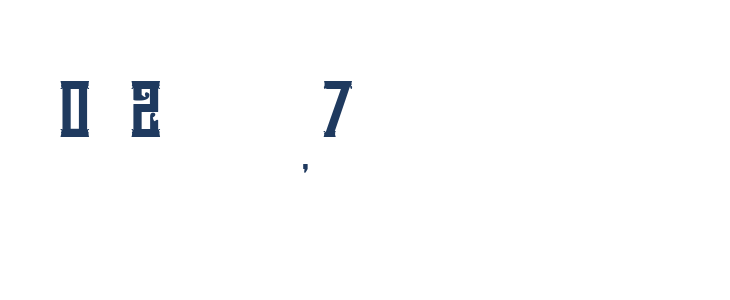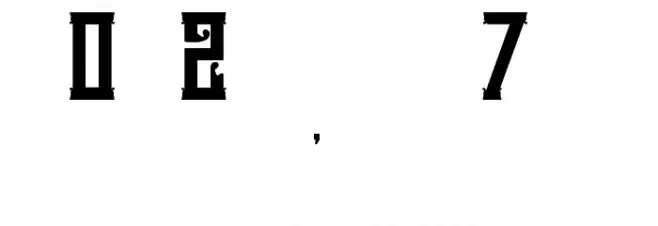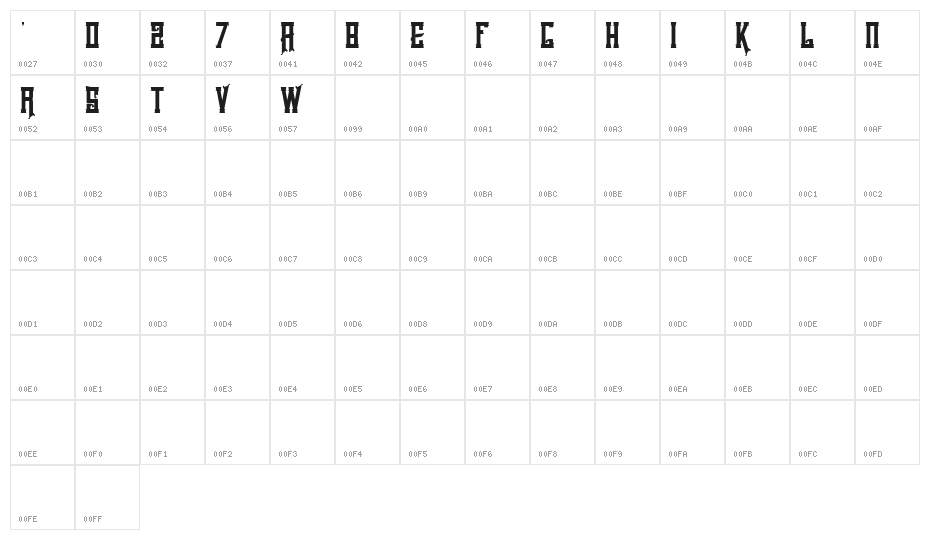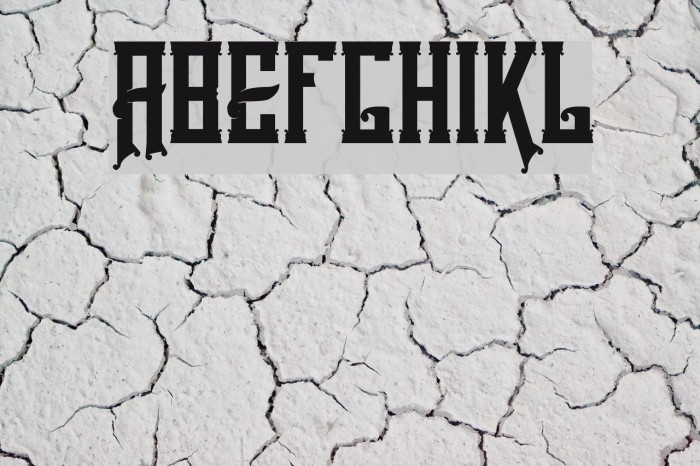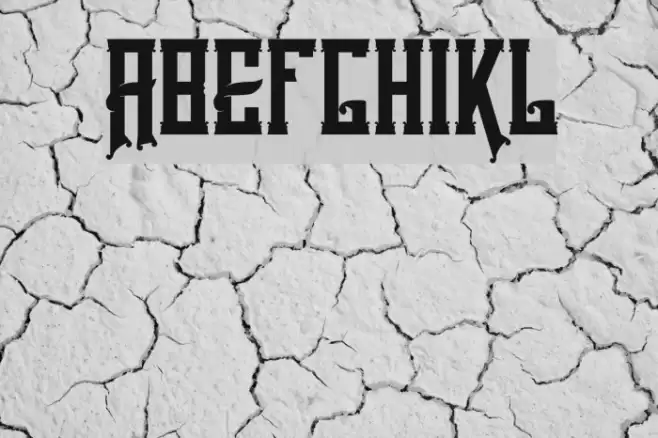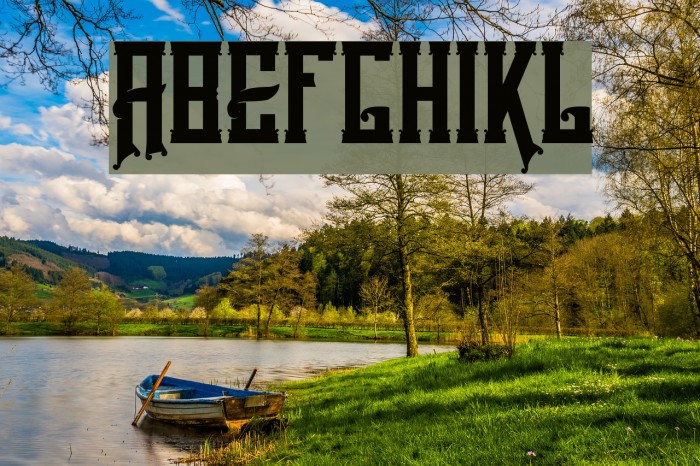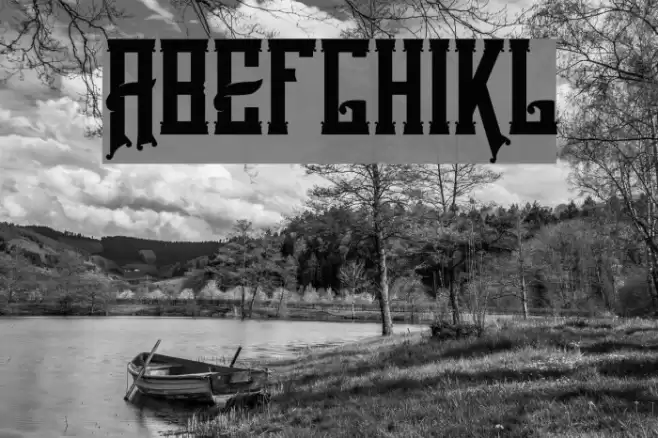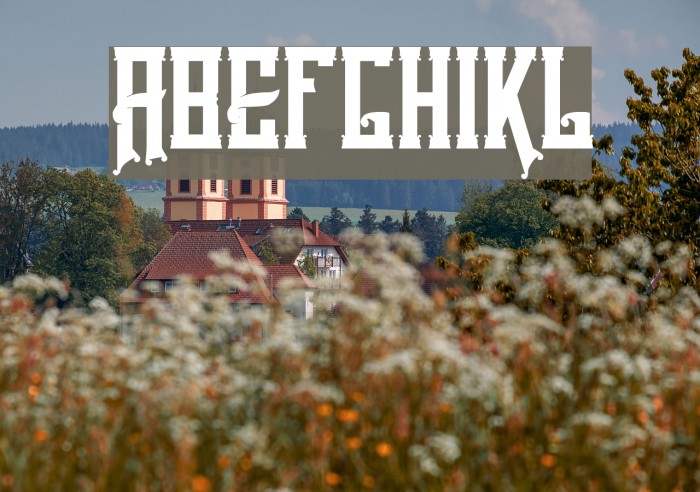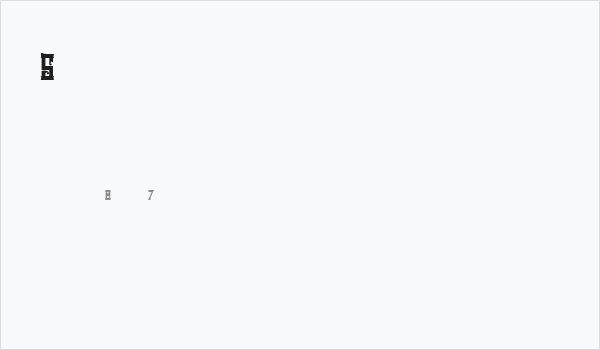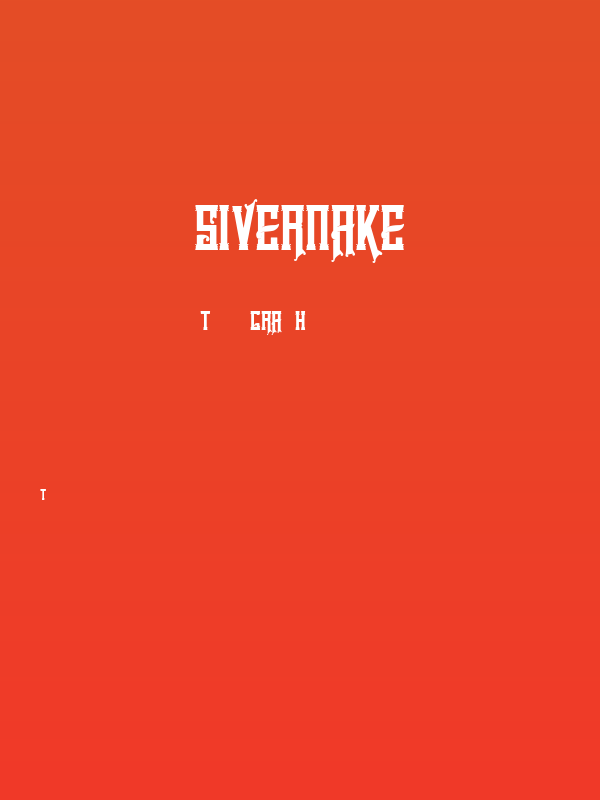
Sivernake Font
Sivernake Description
This font features a bold, decorative style with intricate details and flourishes that give it a distinct, gothic appearance. The characters are tall and narrow, with sharp edges and pointed serifs that add to its dramatic flair. The uppercase letters are particularly ornate, with additional embellishments that enhance their visual impact. The numbers and punctuation maintain the same stylistic elements, ensuring consistency across all characters. This font is designed to capture attention and convey a sense of elegance and sophistication.
| Overall Style | Gothic, Decorative |
| Proposed Projects | Ideal for use in branding, posters, book covers, and any project requiring a dramatic and elegant typeface. |